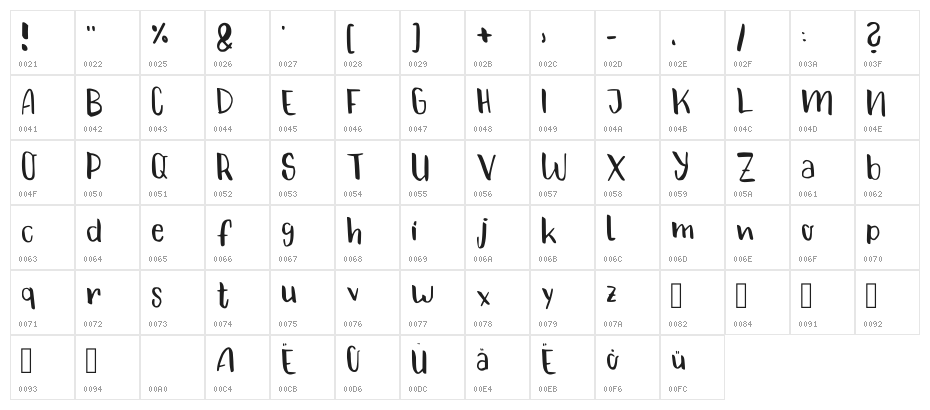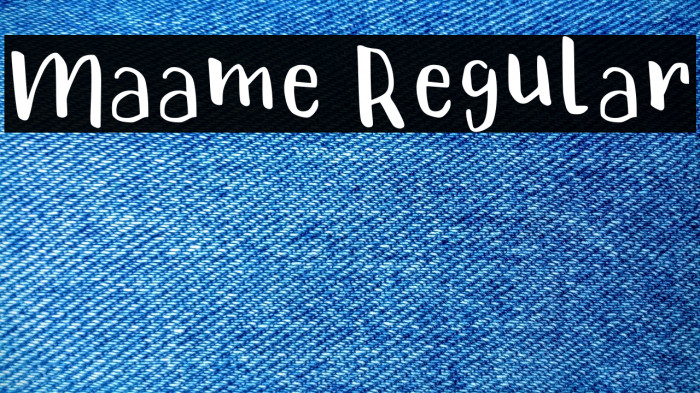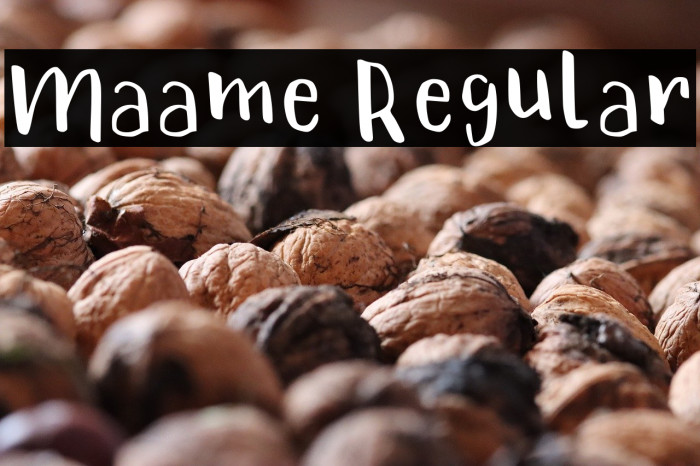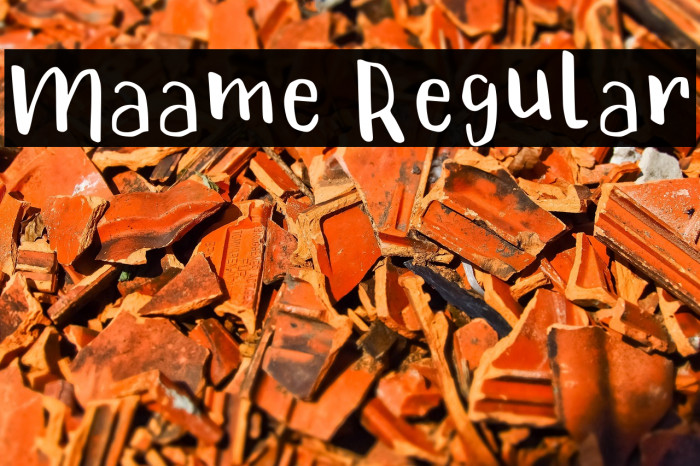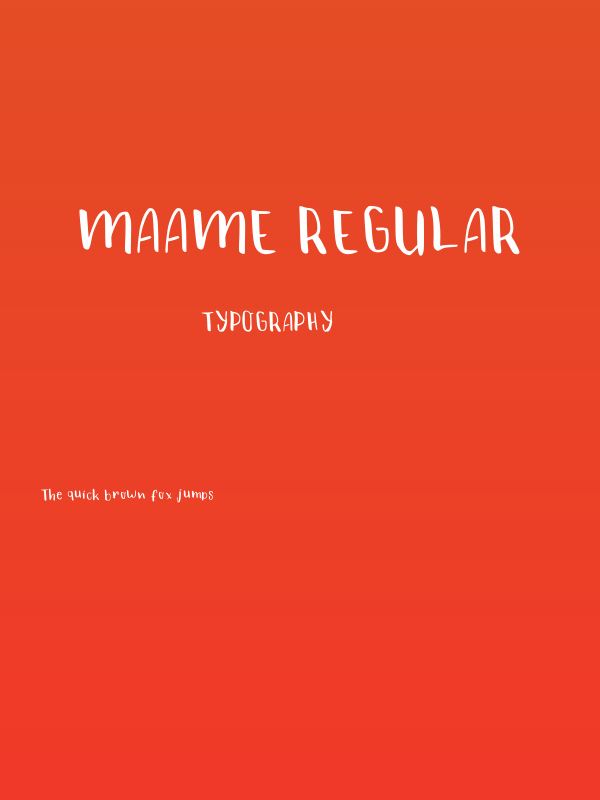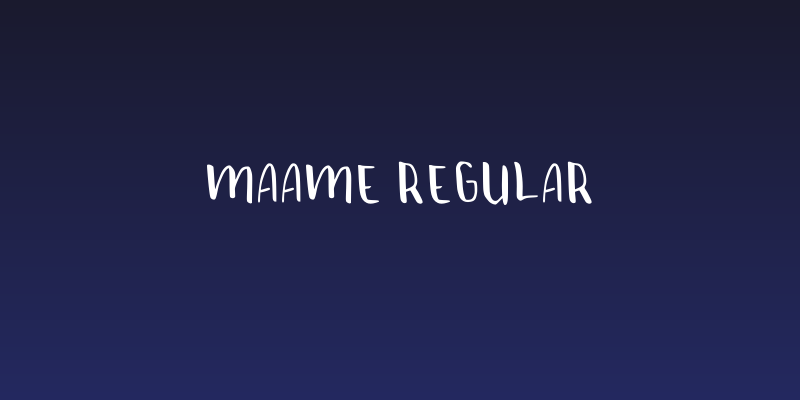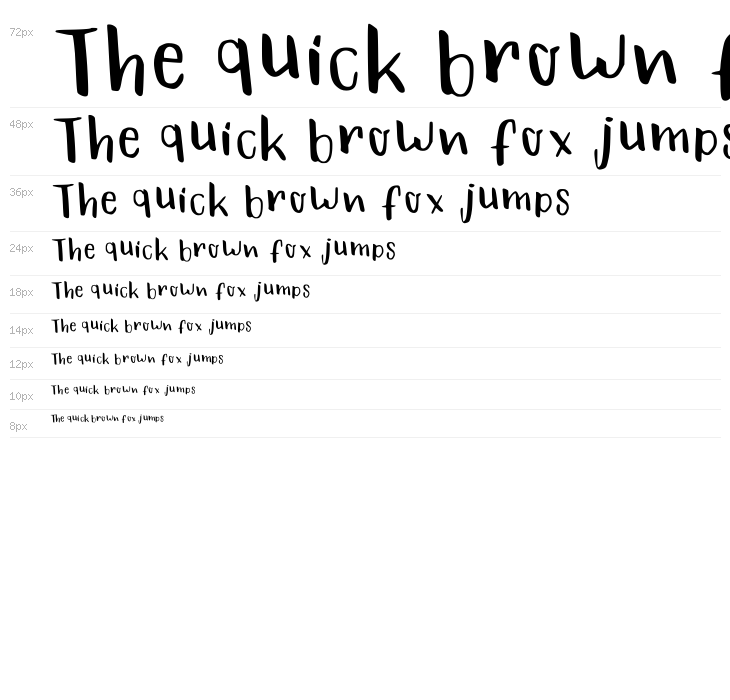
Maame Regular Font
Maame Regular Description
A playful, handwritten font with a casual and friendly appearance, featuring irregular strokes and a slightly whimsical style.
| Overall Style | Casual and whimsical |
| Use Case | Headlines, informal text, and creative projects. |
| Proposed Projects | Greeting cards, invitations, posters, and playful branding. |